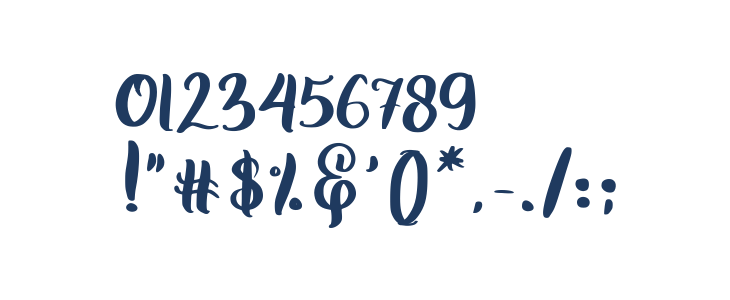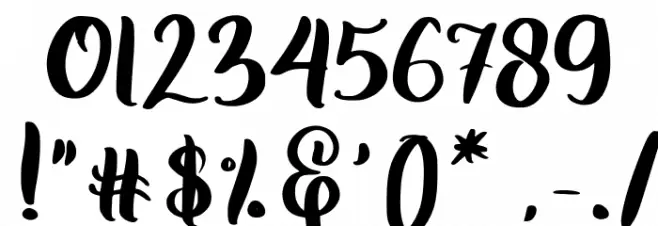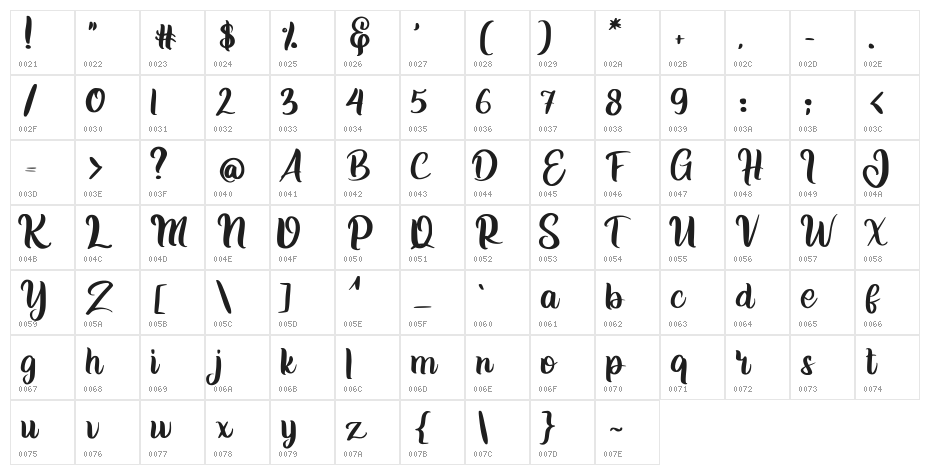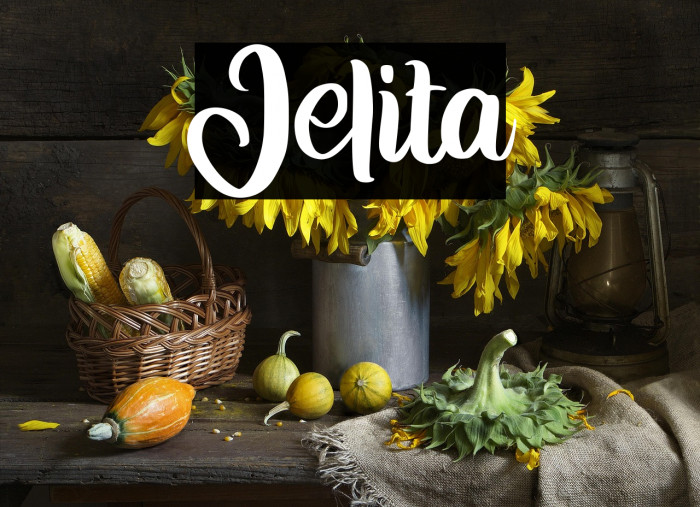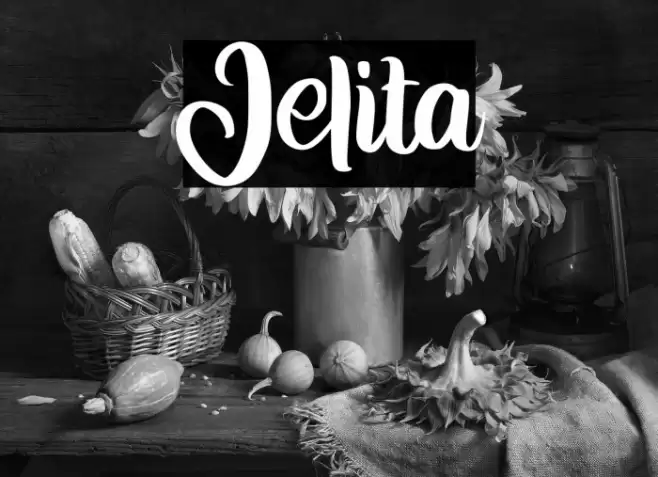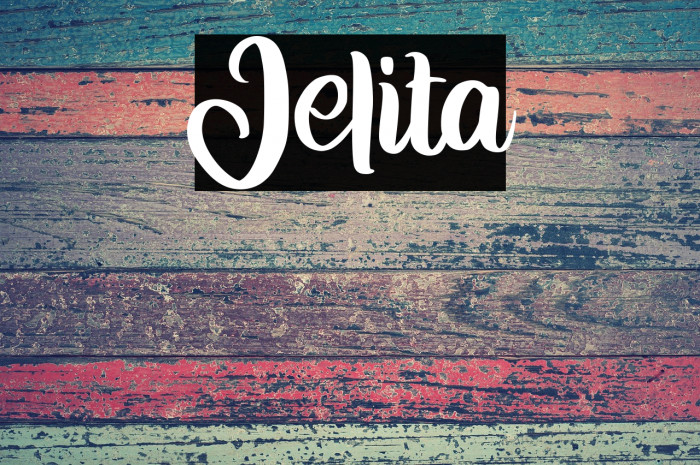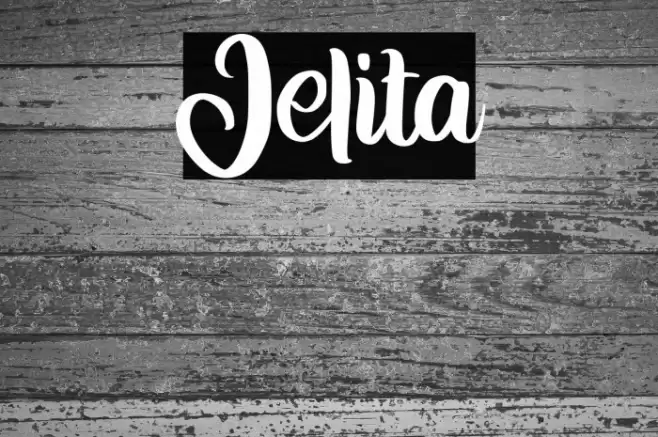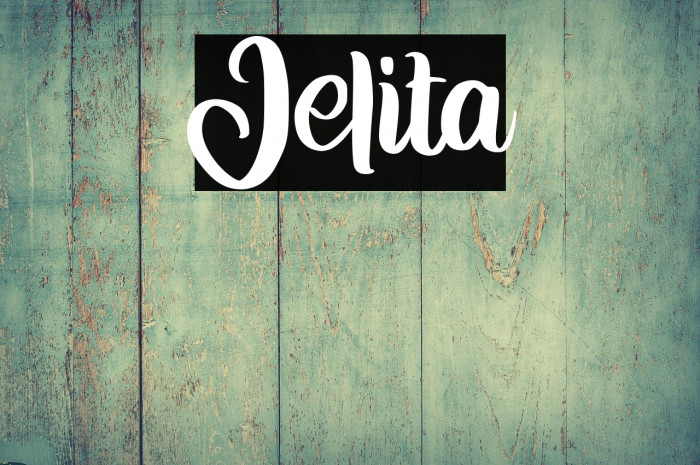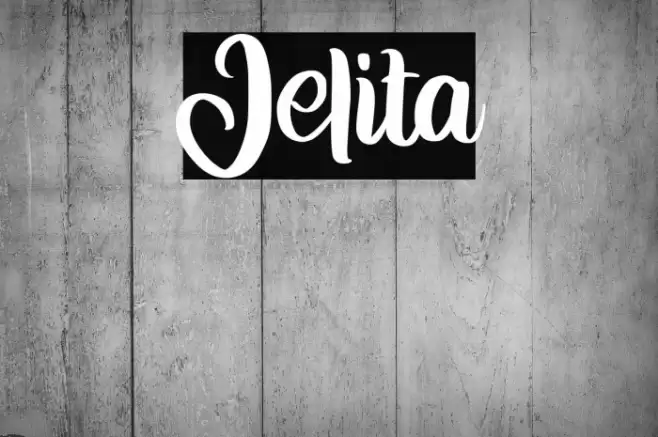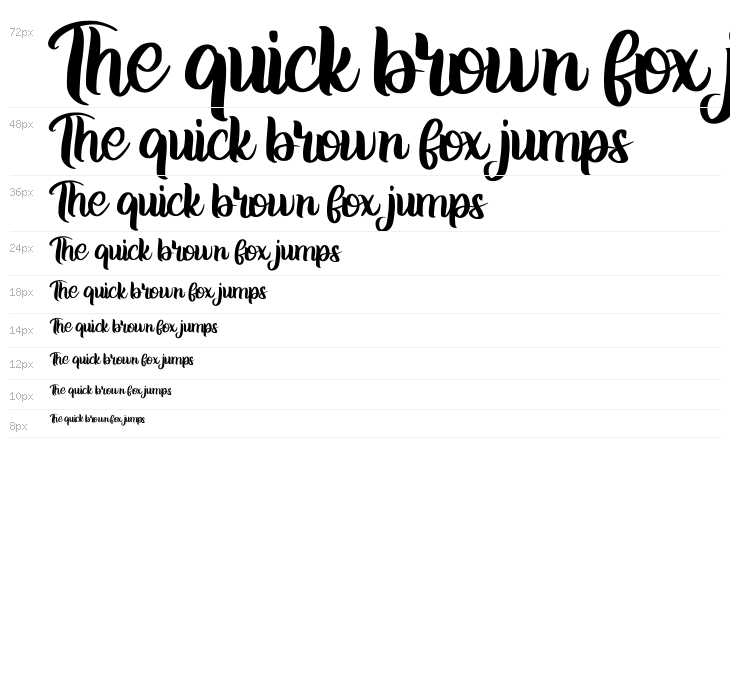
Jelita Font
Jelita Description
This font features a bold and expressive script style with a flowing, cursive appearance. The characters are interconnected, creating a sense of movement and elegance. The uppercase letters are slightly more ornate, with flourishes that enhance their decorative appeal. The lowercase letters maintain a consistent rhythm, contributing to the font's cohesive look. Numbers and special characters are designed to match the overall style, ensuring versatility across different uses. The font's thick strokes and smooth curves give it a dynamic and lively personality, making it suitable for creative and artistic projects.